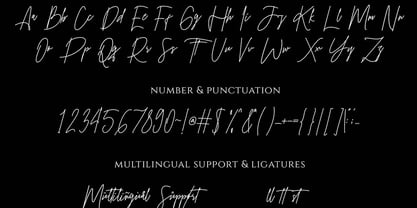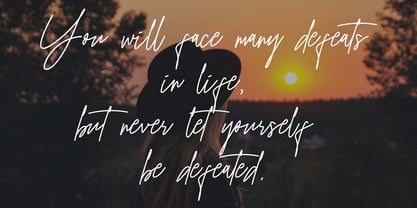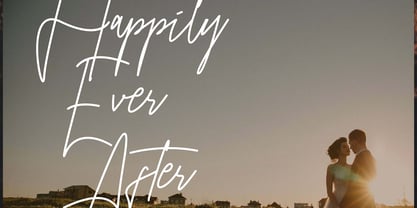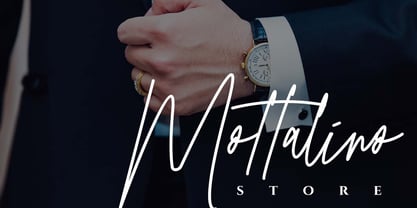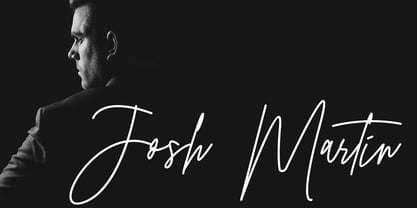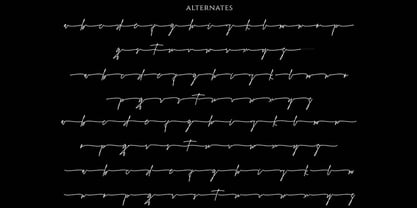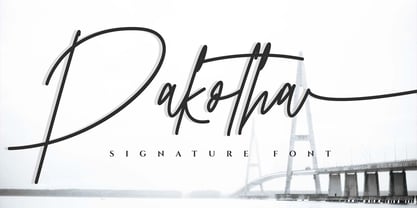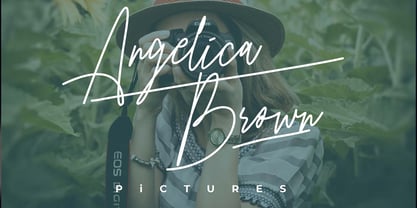
Pakotha
La familia tipográfica Pakotha fue diseñada por Jada Akbal y publicada por Jadatype. Pakotha contiene 1 estilos. Más información sobre esta familia
Pakotha is a flowing handwritten font, described by an elegant touch, perfect for your favorite projects. Fall in love with its incredibly distinct and timeless style and use it to create spectacular designs! This font is PUA encoded which means you can access all of the glyphs and swashes with ease!
Diseñadores: Jada Akbal